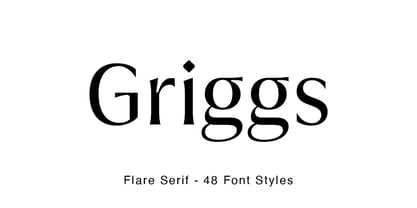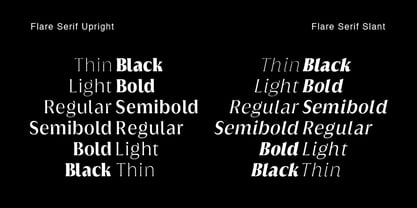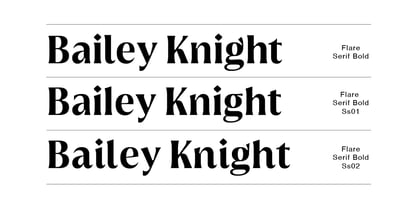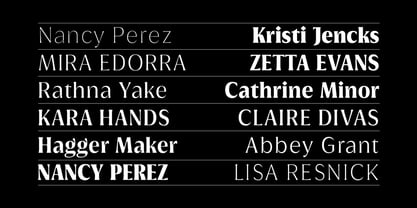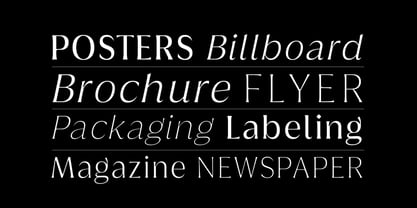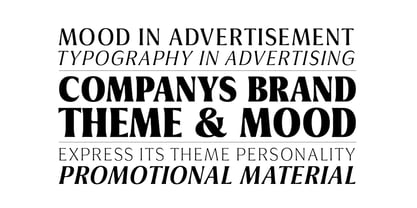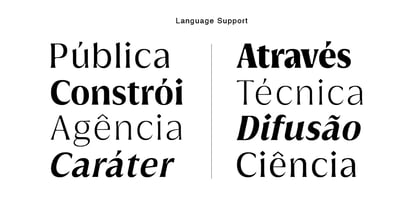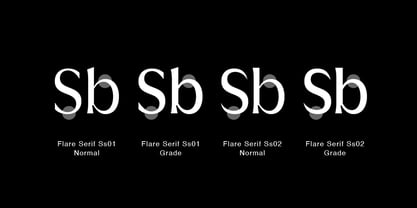
Griggs Flare
by Seniors Studio
The Griggs Flare Font Family was designed by Seniors Studio and published by Seniors Studio. Griggs Flare contains 48 styles and family package options.
Griggs Flare is a high contrast, inktraps, sharp form, and clean cuts, to convey the impression of opulence, elegance with a distinctive look. Each typeface contains with a warm personality and contemporary look. With different stylistic sets, you can choose the best-desired result for your design. You can change the feel of your design from more delicate, to bold to its sharpest most style. It’s a brilliant choice for branding, identity design, editorial design, logo design, display and packaging design etc.
Typeface Features:
• 325 Glyphs
• 6 Weight: Thin, Light, Regular, Semi Bold, Bold, Black
• Total 48 Styles + Slant
• Opentype Features: Stylistic Set 1, Stylistic Set 2
• Latin Language support including
• Kerning